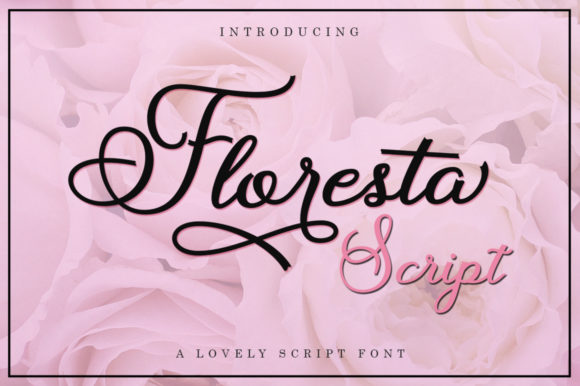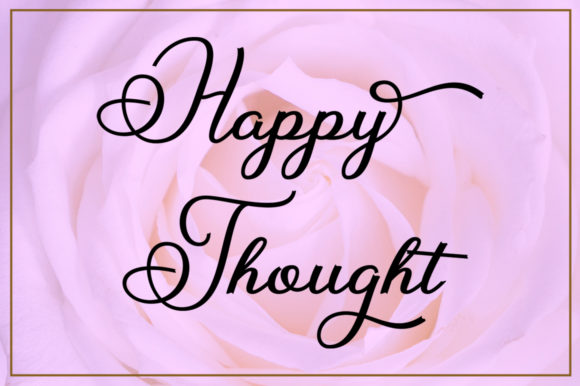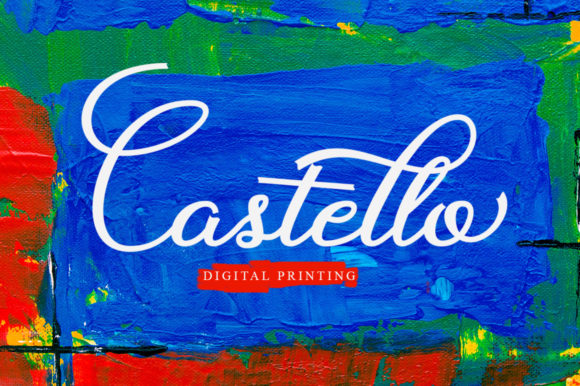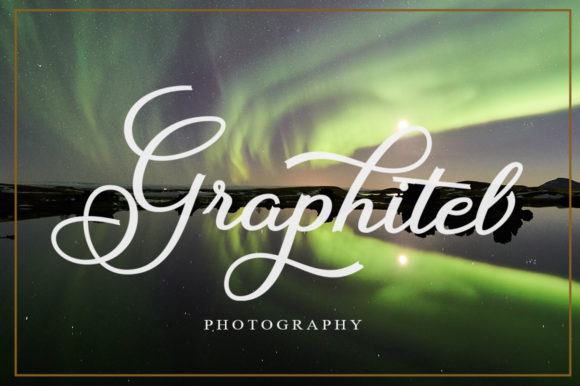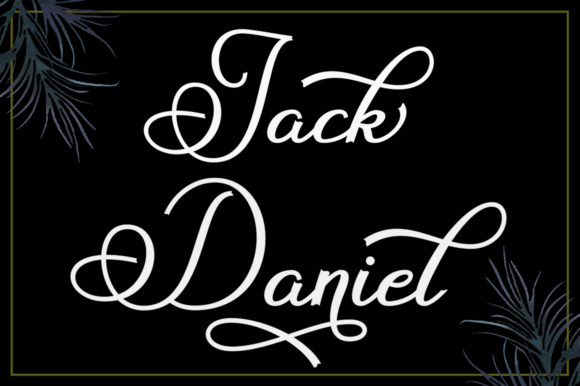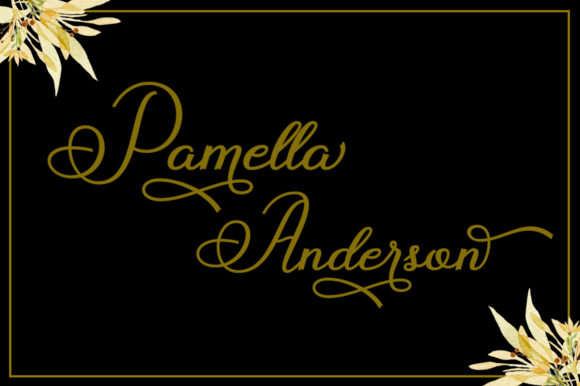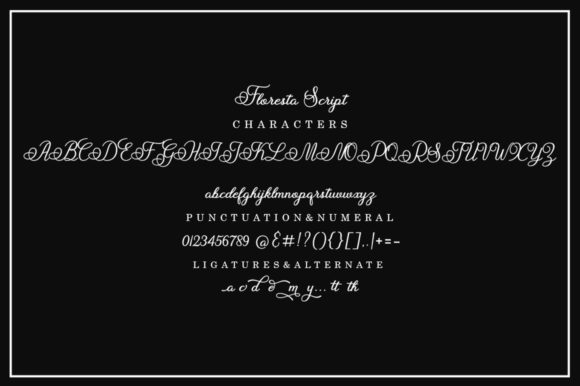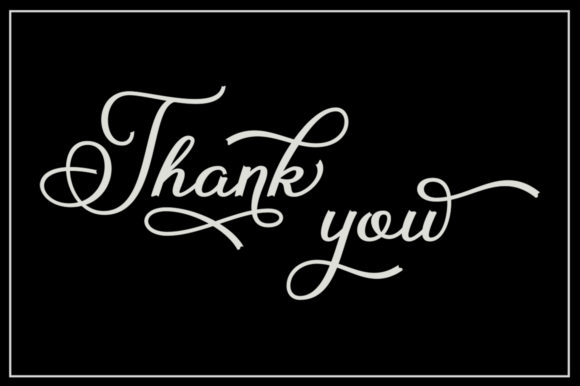
HomeScript FontsFloresta Script Font Script Fonts Floresta Script Font FacebookXPinterestWhatsApp Floresta Script Font Poster 2 Floresta Script Font Poster 3 Floresta Script Font Poster 4 Floresta Script Font Poster 5 Floresta Script Font Poster 6 Floresta Script Font Poster 7 Floresta Script Font Poster 8 About Floresta Script Font Floresta is an amazing and joyful script with a bold twist. Fall in love with its unique charm. DOWNLOAD NOW People also explored Rhoselinna Font Christmas Font Corelasin Font Dear Sweetie Font Lady Rose Font Edgy Marker Font Sandiago Font Sweety Font Mild Font 369 0 TagsFloresta Script Font Previous articleBungkret FontNext articleCanonatia Font LEAVE A REPLY Cancel reply Comment: Please enter your comment! Name:* Please enter your name here Email:* You have entered an incorrect email address! Please enter your email address here Website: Save my name, email, and website in this browser for the next time I comment. Personal Use Free Jellia Personal Use Free Read more about this font Propaganda Personal Use Free Read more about this font Hiters Personal Use Free Read more about this font Starry Cakes Personal Use Free Read more about this font BLOG Exploring Font Trends Shaping Communication in the Digital Era Fonts, like all design elements, are subject to trends. They play a crucial role in communicating a brand's personality,... Elegant Wedding Invitation Fonts – Handwritten & Script Fonts How to Install and Use Fonts on Windows, macOS, and Web Projects Where to Buy American Fonts Online in 2024